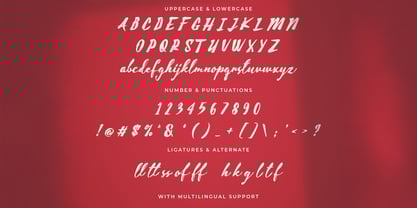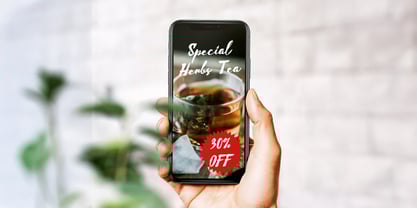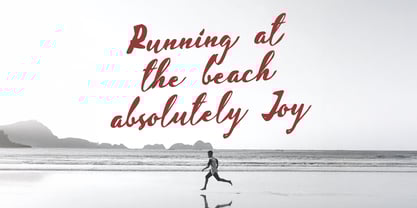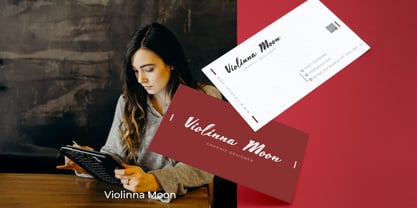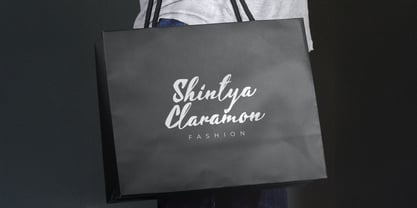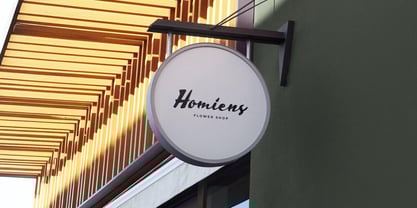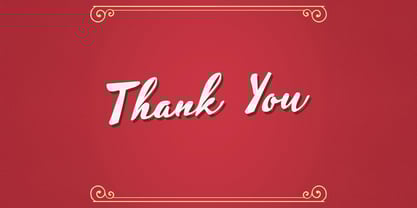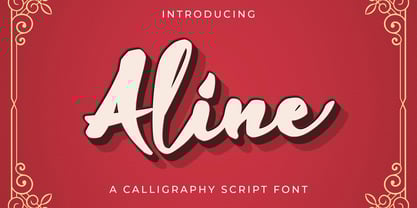
The Aline Font Family was designed by Virgiawan Listanto and published by Stringlabs Creative Studio. Aline contains 1 styles.
Aline is a graceful handwritten font that captures the natural beauty of pen-on-paper writing. With smooth curves and a delicate flow, this font brings warmth, authenticity, and a personal touch to any creative project. Perfect for everything from branding to invitations, Aline offers a stylish yet approachable look that feels effortlessly refined.
Aline